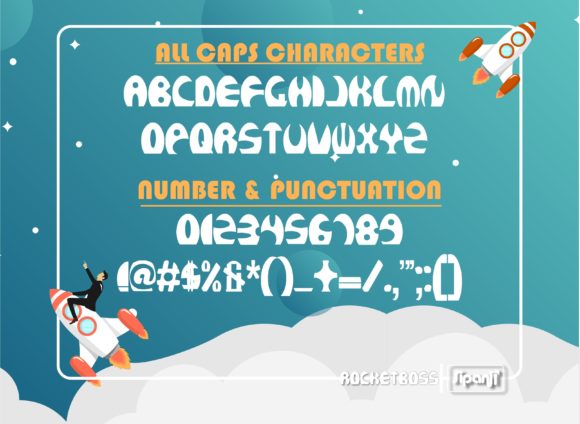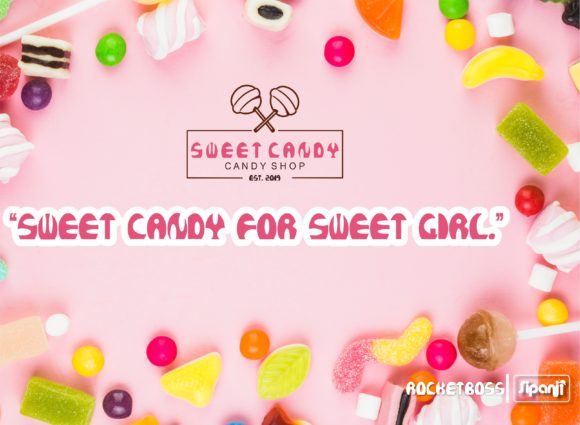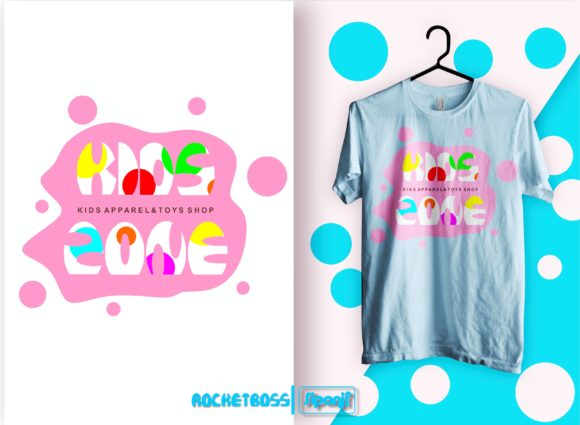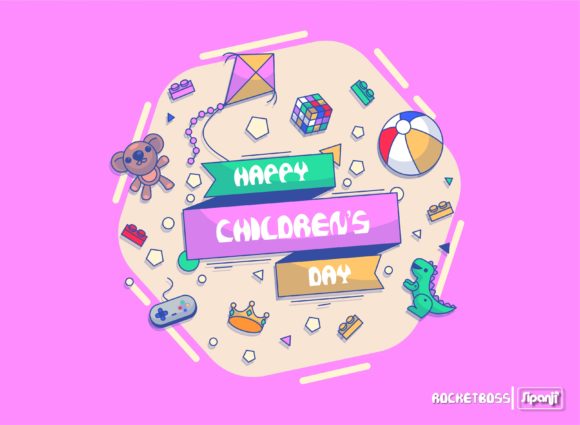
Introduction to Rocketboss Font
Have you ever stared at a blank canvas, feeling stuck and uninspired? You’ve got a creative project in mind, but the right words just aren’t coming together. It’s moments like these that a trusty design resource can be a game-changer. For designers and creatives, finding the perfect font can be the difference between a mediocre project and a truly show-stopping one.
Enter the Rocketboss Font – a high-quality, free download that’s about to become your new best friend. With its bold, cute feel, this font adds a touch of whimsy to any design, elevating it from ordinary to extraordinary. Whether you’re working on a graphic novel, designing a logo, or crafting a social media post, the Rocketboss Font is the perfect companion for your creative journey.
One of the best things about the Rocketboss Font is its versatility. Its transparent background makes it easy to layer over other design elements, and its bold lines ensure it stands out on any background. With the Rocketboss Font, you can create truly unique and eye-catching designs that will leave a lasting impression on your audience.
Key Features of Rocketboss Font
- Unique, bold, and modern font style ideal for digital and print designs
- Comes in 5 different font styles (Regular, Bold, Italic, Bold Italic, Outline)
Honest Review: Rocketboss Font
I recently came across the Rocketboss Font, and I must say it’s a unique addition to any design resource. As a designer, I’m always on the lookout for high-quality fonts that can elevate my creative projects.
One of the standout features of the Rocketboss Font is its versatility. It’s perfect for creating bold, eye-catching headings that can grab the user’s attention. The font is available for free download, which is a huge bonus for designers working on a budget.
- Unique and bold design
- Perfect for creating attention-grabbing headings
- High-quality and crisp design
- Transparent background, allowing for seamless integration with any design
- May not be suitable for all types of projects, particularly those requiring a more subtle design
- Limited font sizes and styles available
Overall, I’m impressed with the Rocketboss Font. It’s a great addition to any design resource, and its unique design makes it perfect for creative projects that require a bold statement. While it may have some limitations, I believe it’s a great option for designers looking for a high-quality, free font.